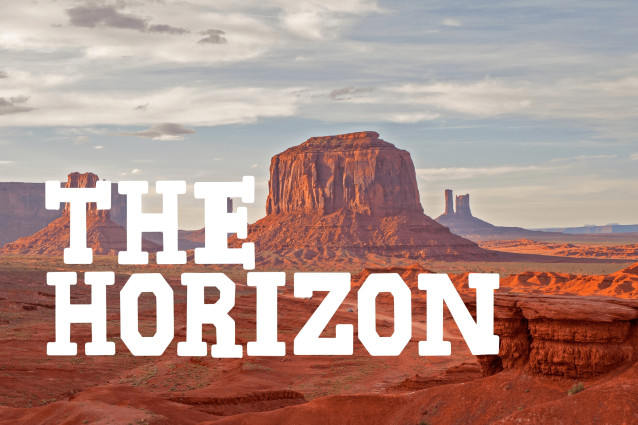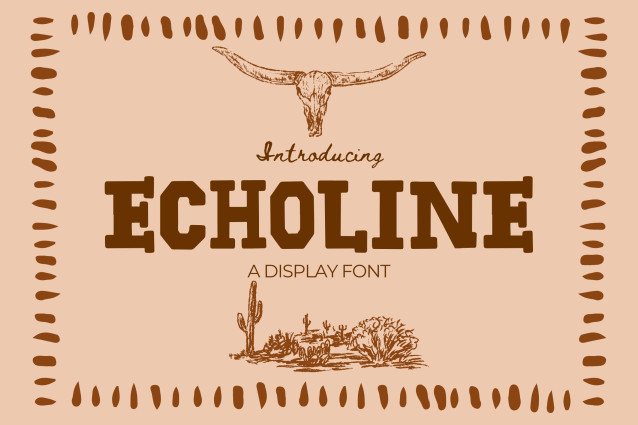
Echoline Font
Echoline Font is a bold and elegant serif display font that brings classic charm with a modern twist. With high contrast strokes, refined curves, and stylish terminals, Echoline is designed to make your headlines, logos, and editorial layouts stand out with sophistication and confidence.